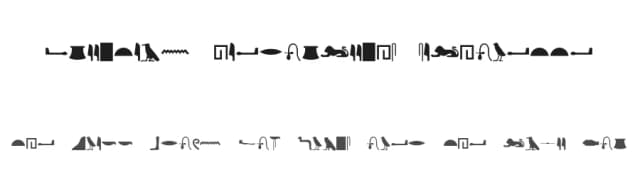
About Ancient Egyptian Hieroglyphs Font
Ancient Egyptian Hieroglyphs is a dingbat font designed by Lene Arensdorff. It includes 117 glyphs, a regular weight, OTF (CFF) format, and 91 languages. Ancient Egyptian Hieroglyphs is free to download; check the license details on this page before commercial use. Dingbat fonts like Ancient Egyptian Hieroglyphs work best for icons, ornaments, bullet points, and decorative accents.
| Designer | Lene Martin Arensdorff Kristiansen |
Ancient Egyptian Hieroglyphs Font is a versatile dingbats font that works for both headings and body text. Pair it with a contrasting sans-serif or serif font to add visual interest and a clear distinction between titles and body copy.
Ancient Egyptian Hieroglyphs Font
Ancient Egyptian Hieroglyphs Font is a dingbats typeface by Lene Arensdorff, ideal for logos, invitations, branding, and creative projects.